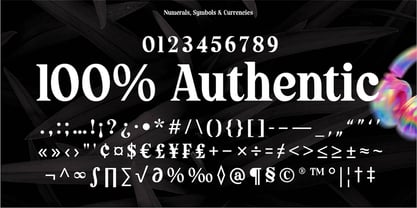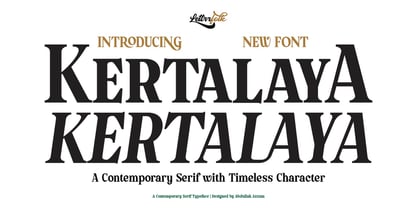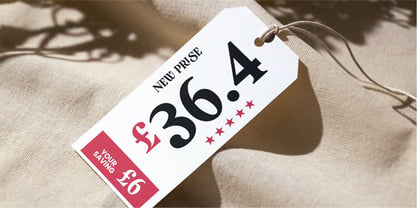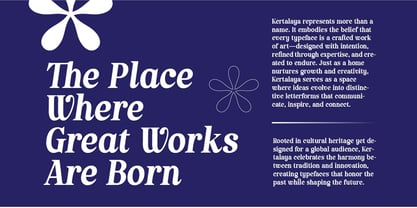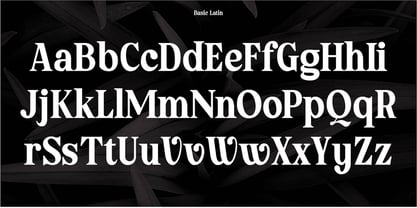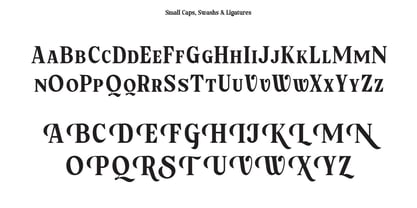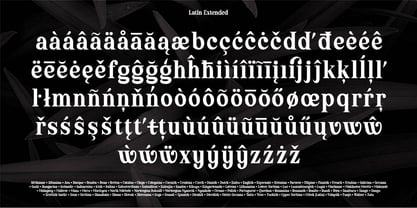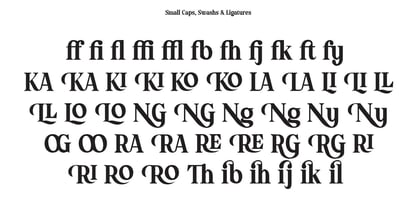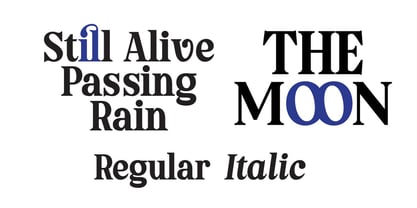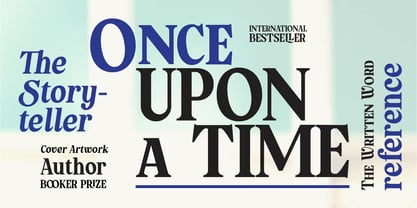
Kertalaya Serif
by Lettrrfolk
Kertalaya is a distinctive display typeface inspired by the timeless character of classic lettering and vintage visual culture. Its expressive forms combine elegant proportions with a warm, nostalgic personality, creating a strong presence while maintaining a refined and readable rhythm. The Regular and Italic styles are designed to work together, giving designers flexibility to create expressive typographic compositions with contrast and movement. Kertalaya is well suited for branding, logos, packaging, editorial design, posters, invitations, labels, signage, and other projects that call for a sophisticated vintage atmosphere. Its distinctive letterforms make it especially effective for headlines, short statements, and prominent display typography, bringing character and personality to both classic and contemporary designs.